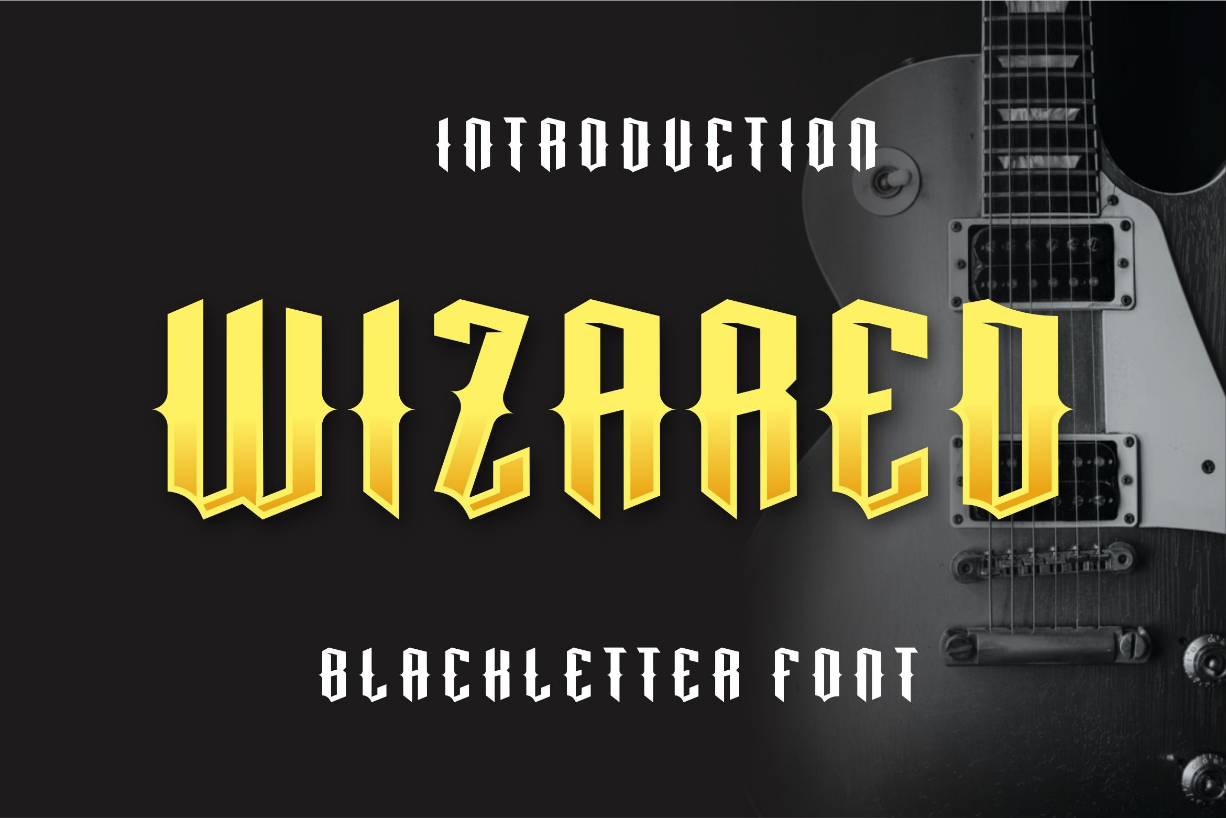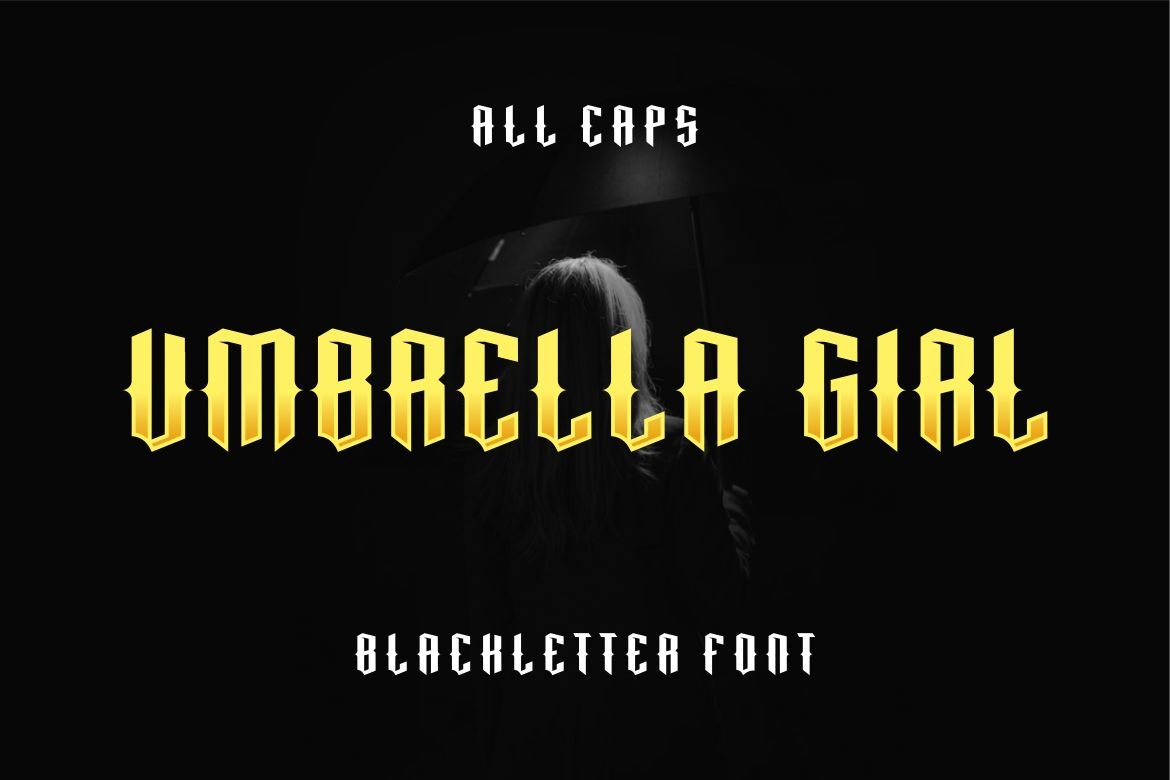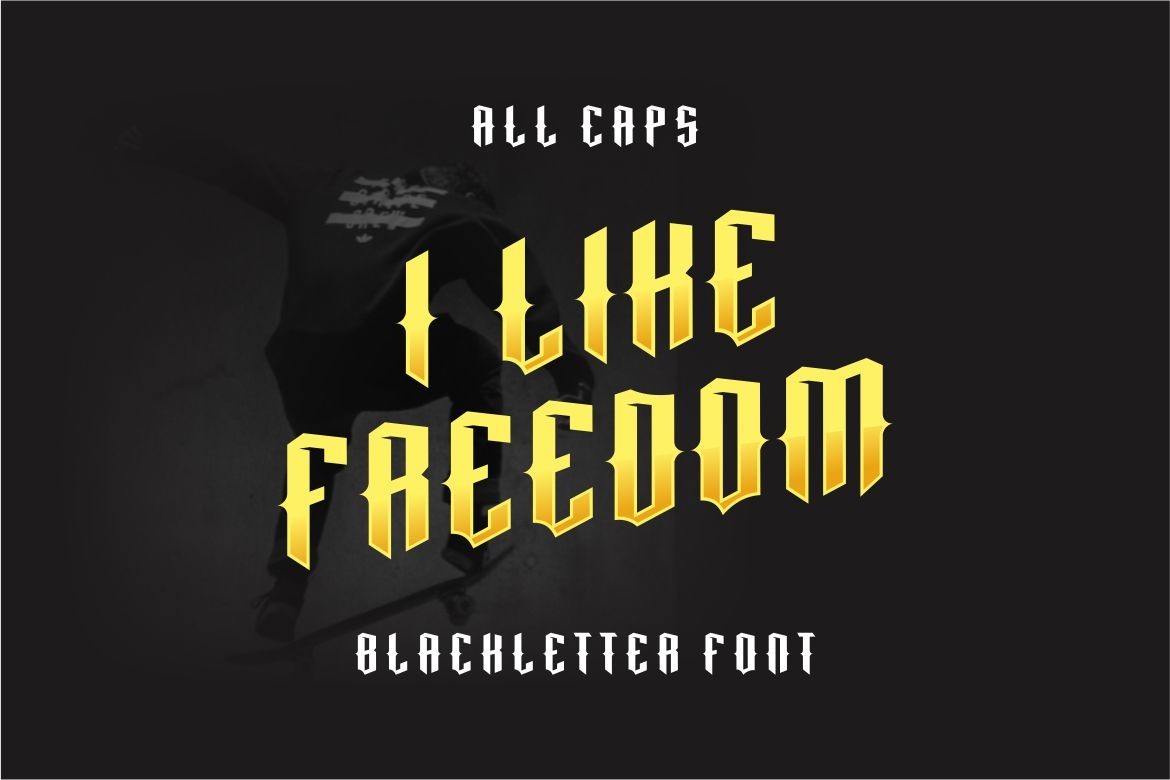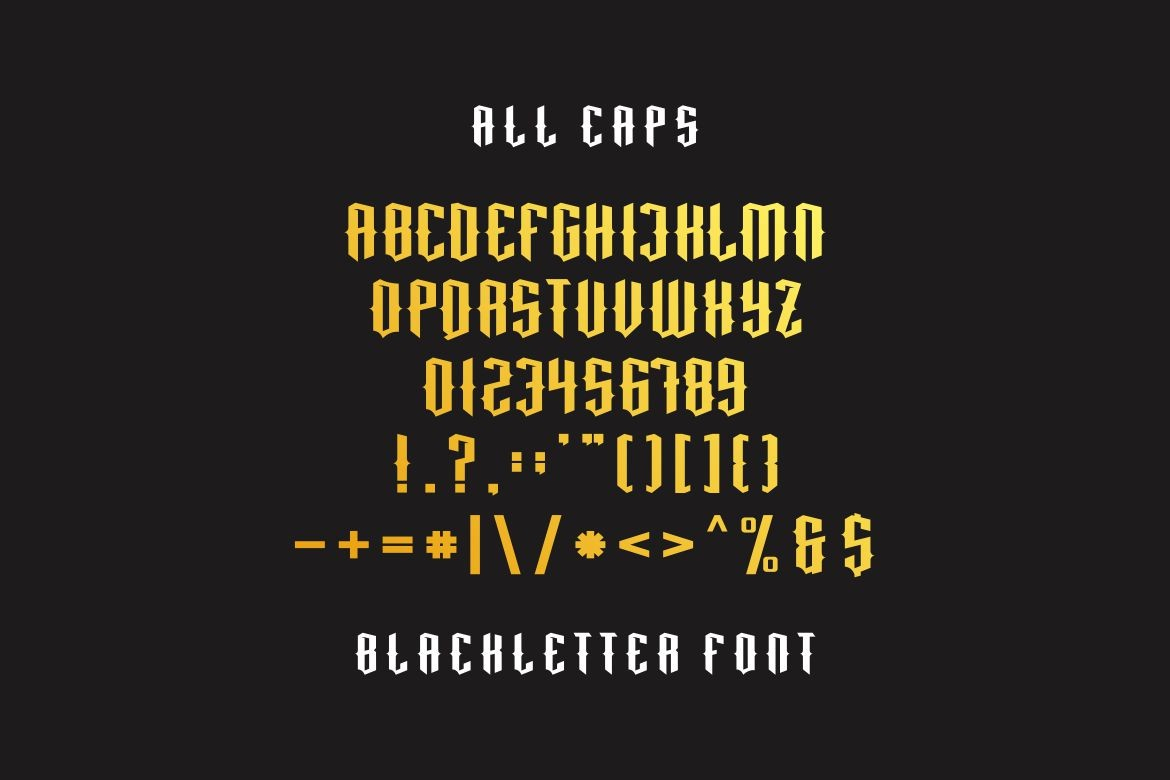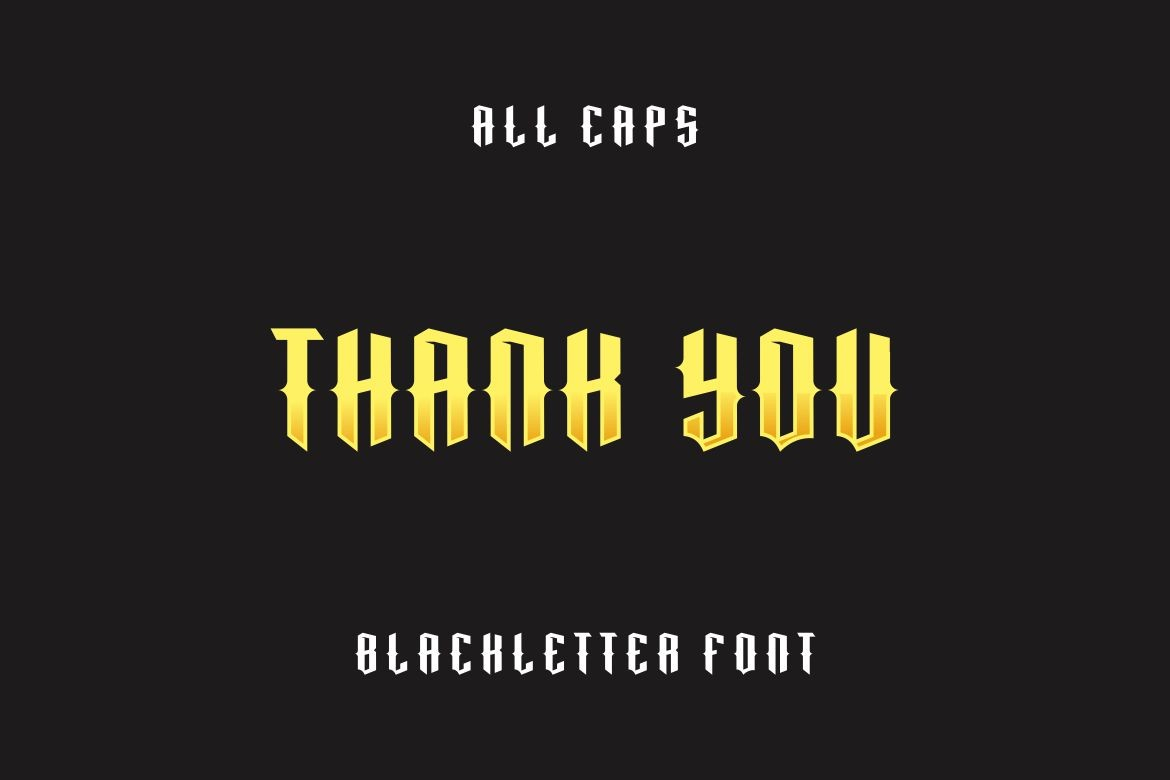
Wizared Font
About Wizared Font
Presenting our new product **Wizared Blackletter Font** – Modern Font
**Wizared Blackletter Font** – Modern Font is a bold and authentic display font. This font is perfect for any branding project such as logos, t-shirt printing, creative products, and more. extraordinary in a variety of contexts.